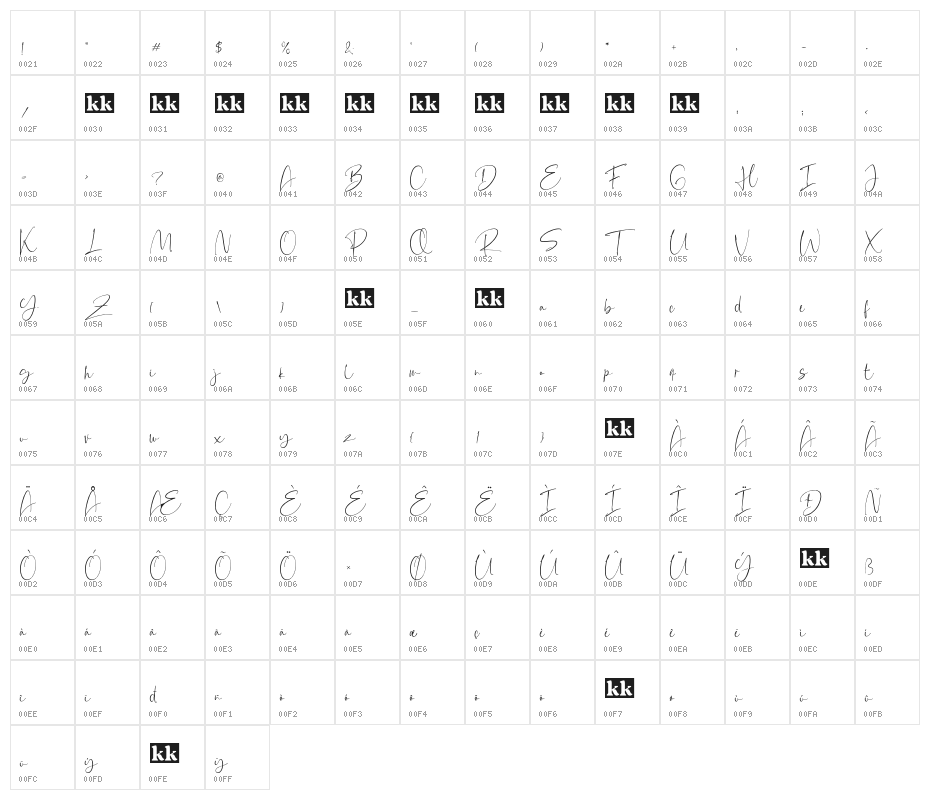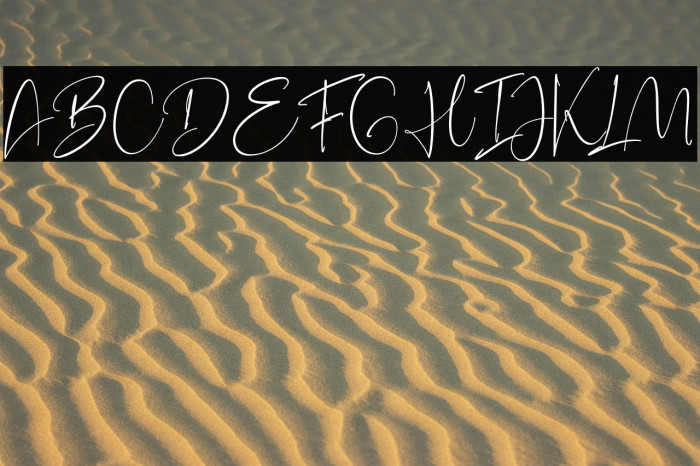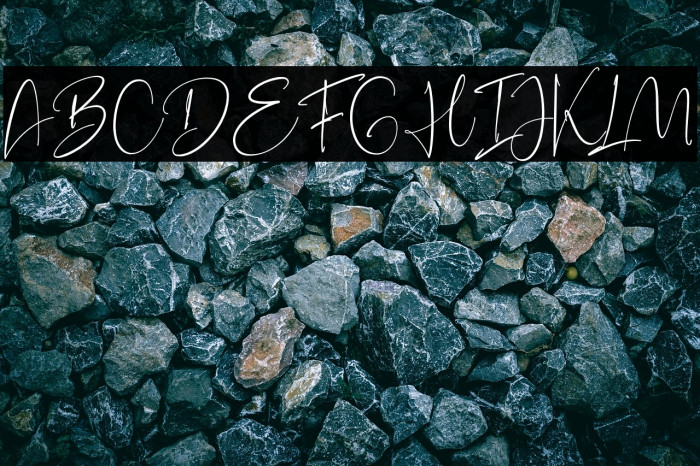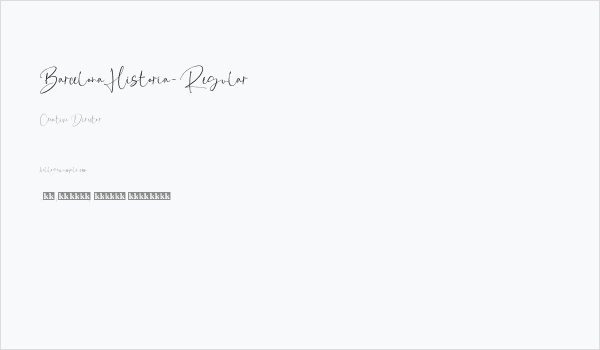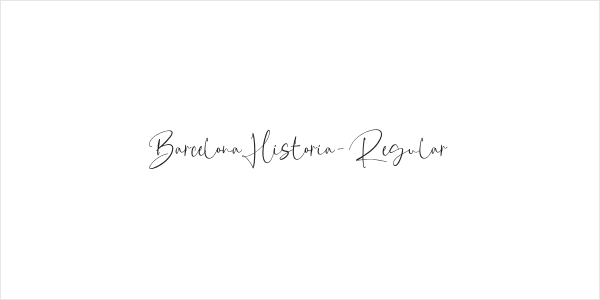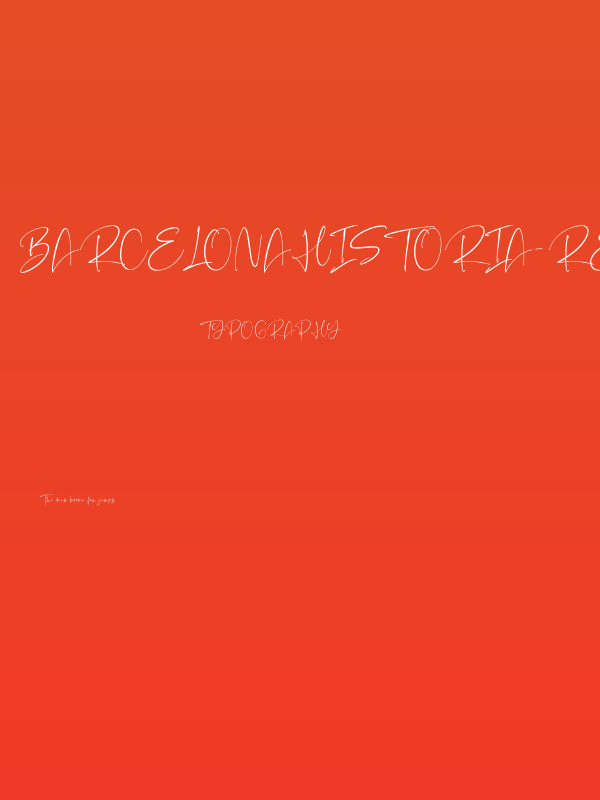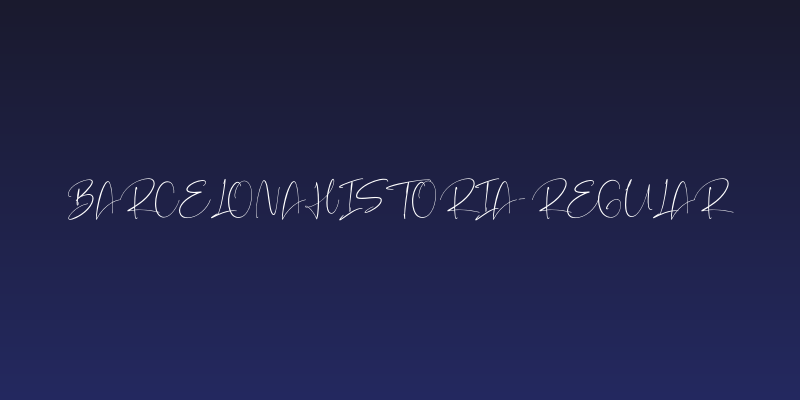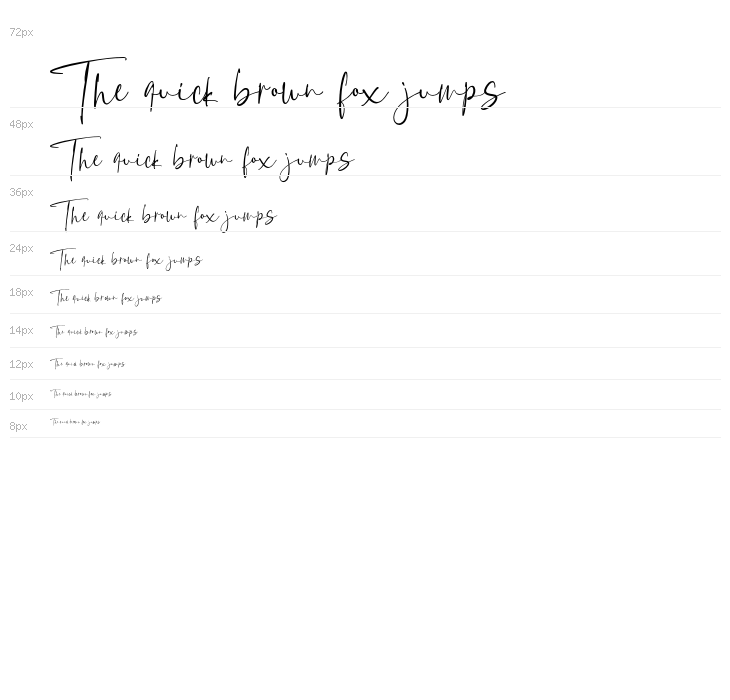
BarcelonaHistoria-Regular Font
BarcelonaHistoria-Regular Description
This font features an elegant and flowing script style, characterized by its delicate and intricate letterforms. The uppercase letters exhibit a graceful, sweeping motion, while the lowercase letters maintain a consistent fluidity, enhancing the overall aesthetic. The font's design is reminiscent of handwritten calligraphy, with a modern twist that adds a touch of sophistication. The special characters and numbers are seamlessly integrated, maintaining the font's cohesive look. This font is perfect for projects that require a personal and artistic touch, offering a unique blend of classic and contemporary styles.